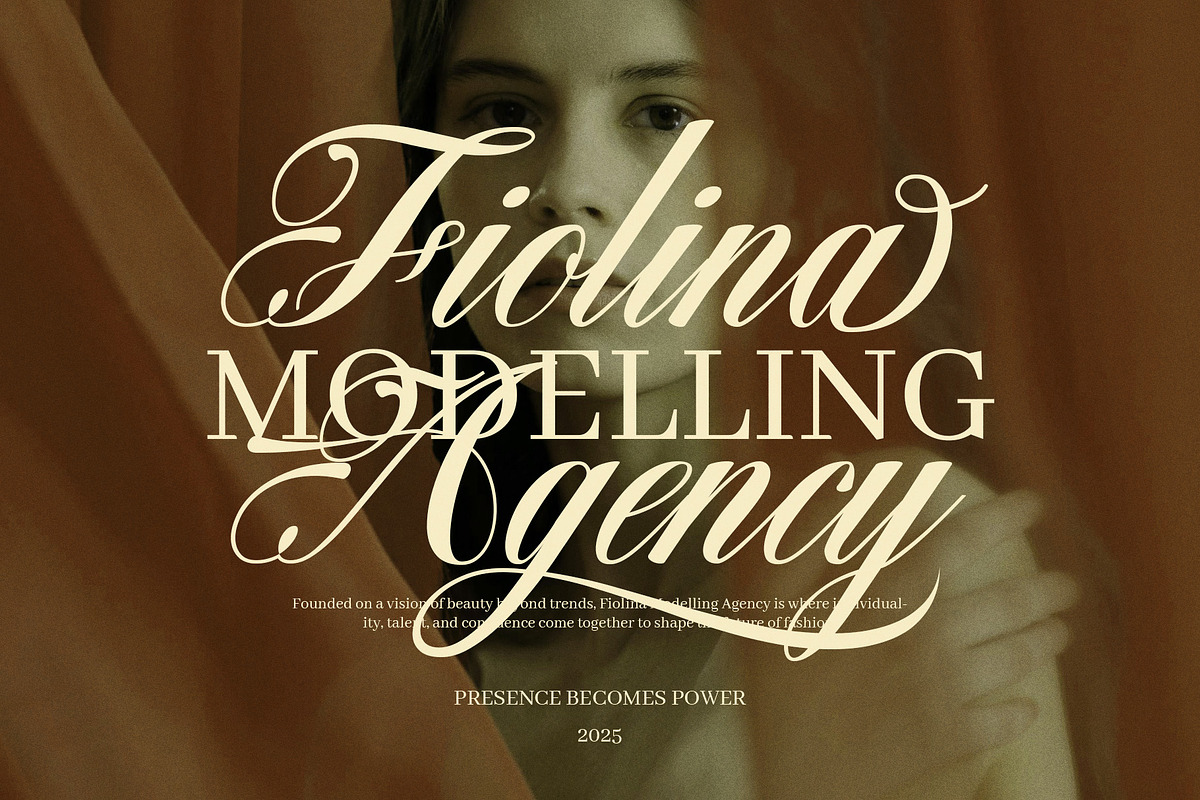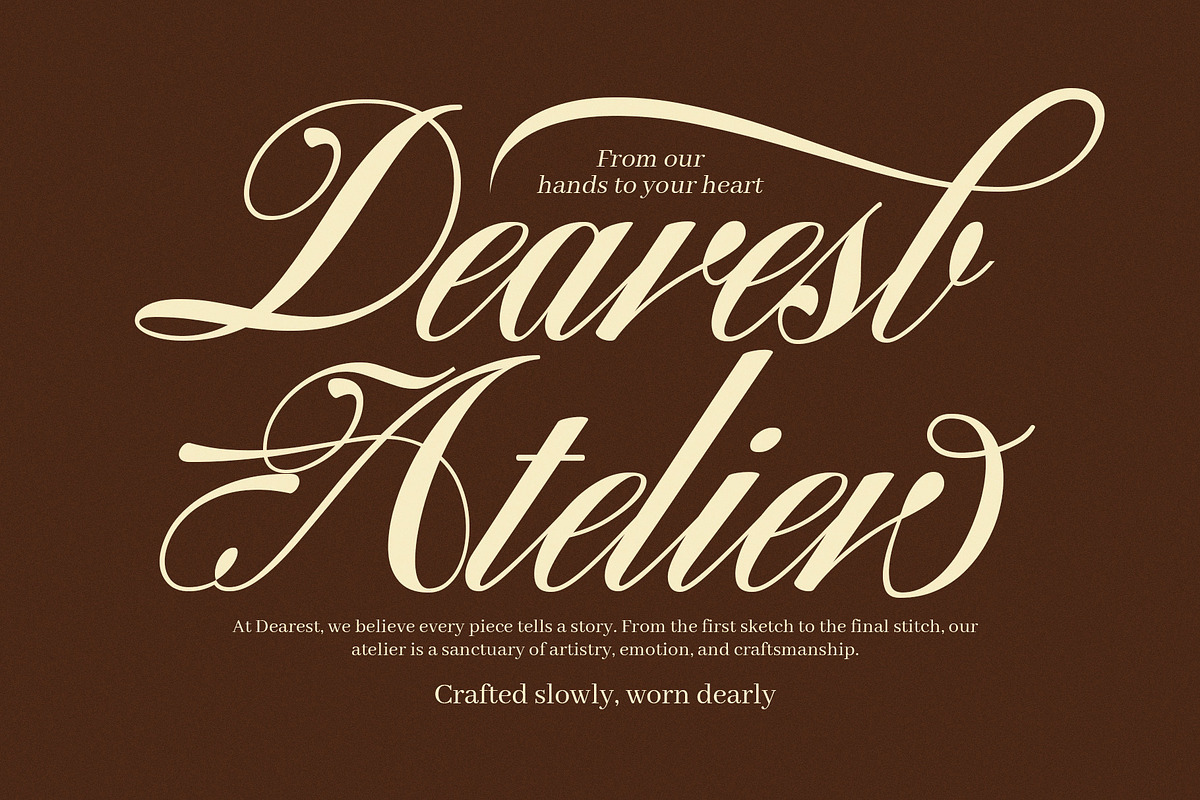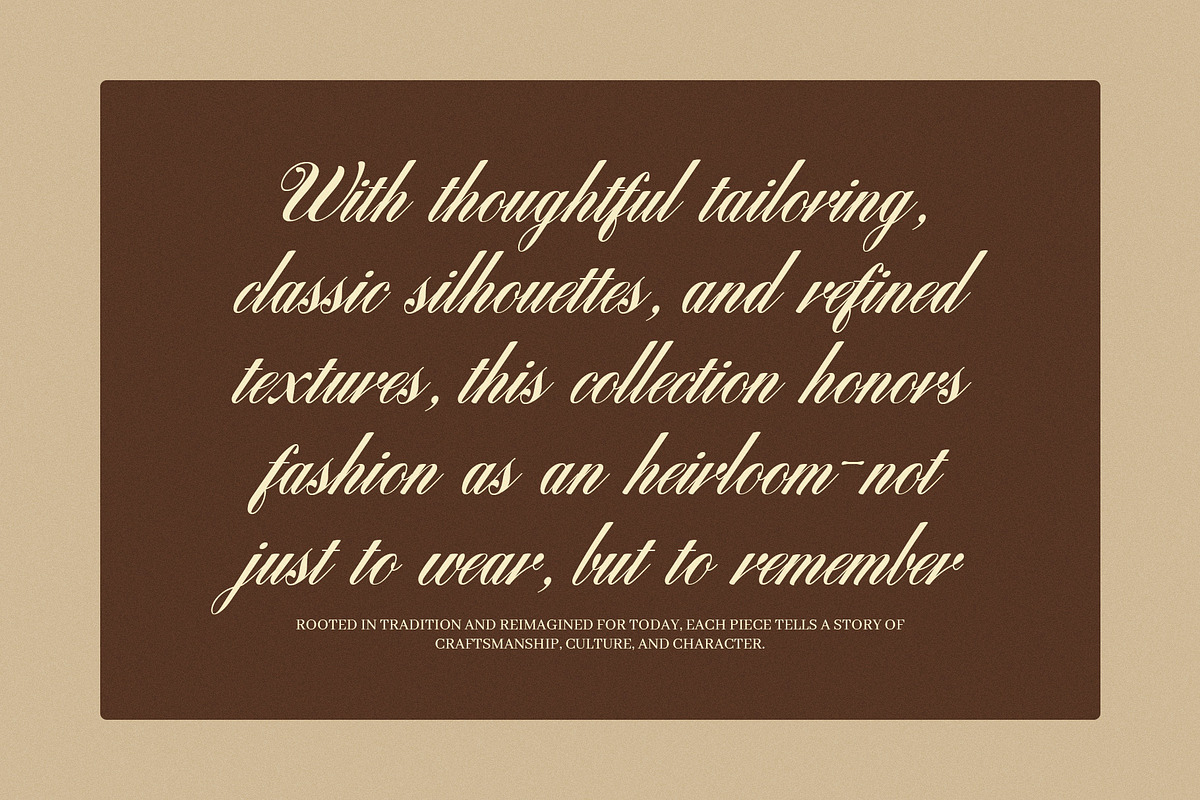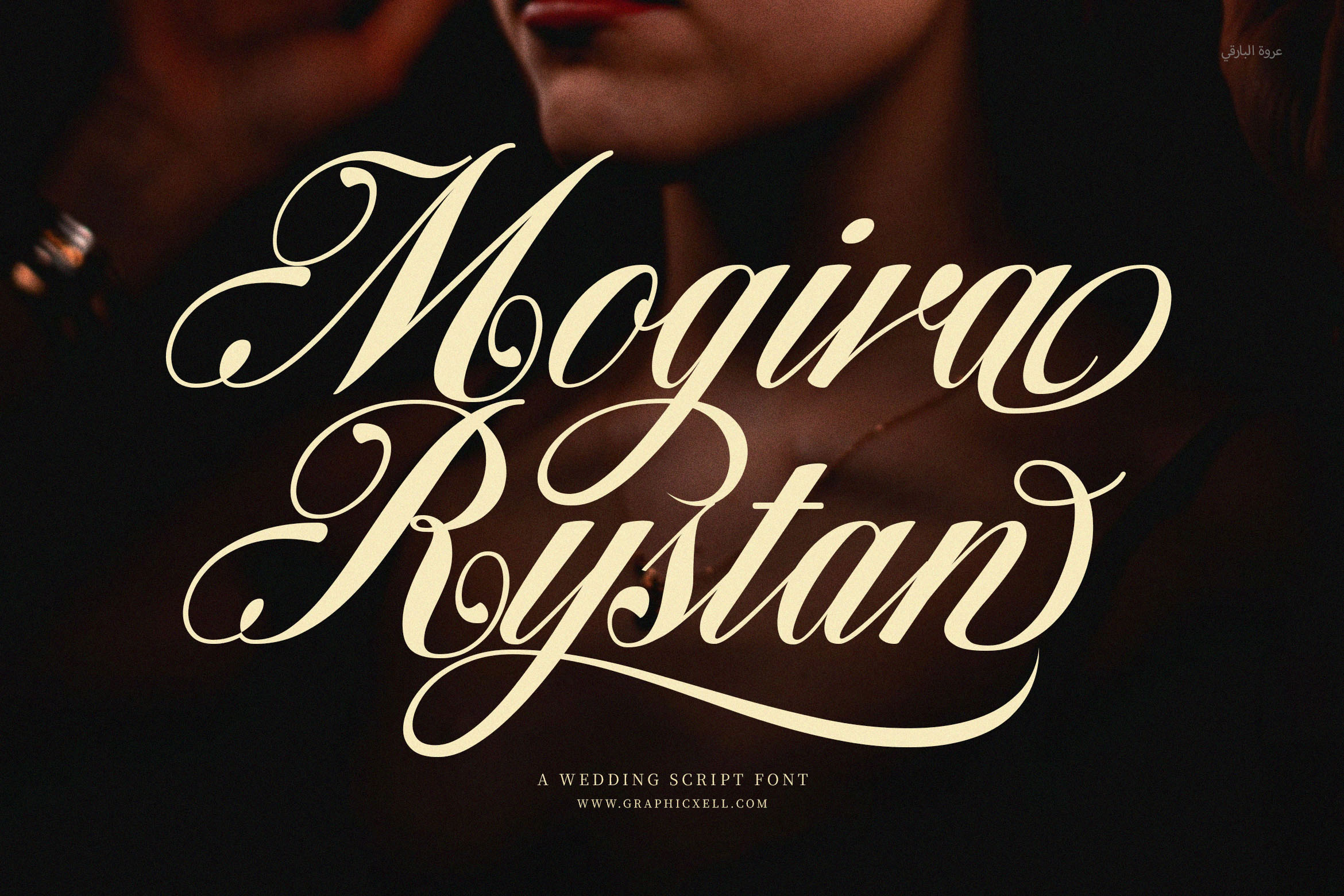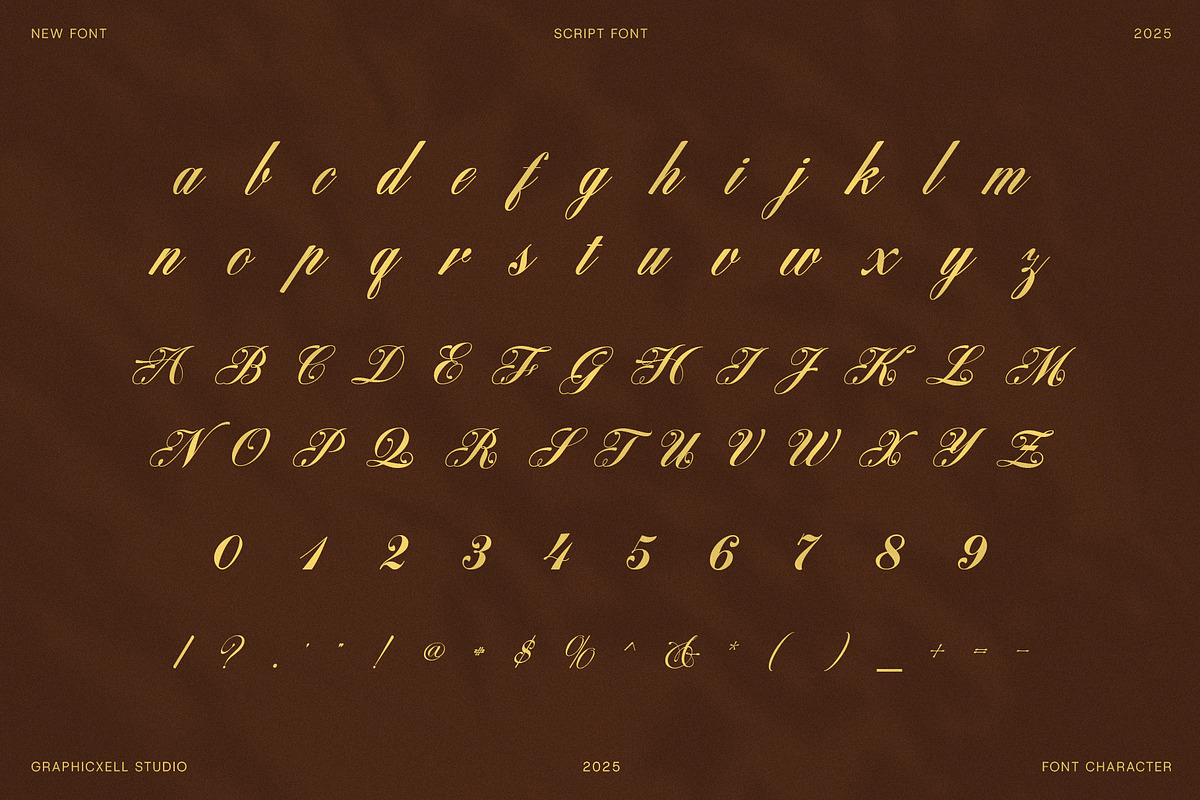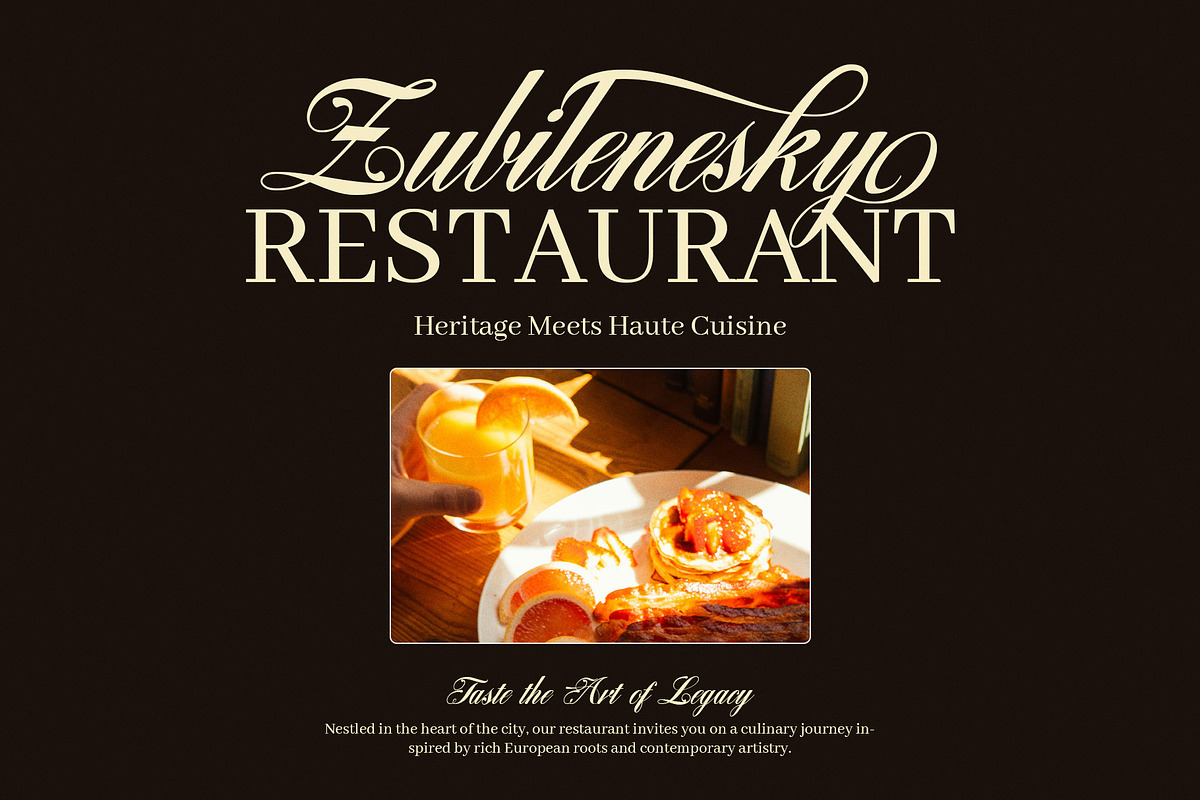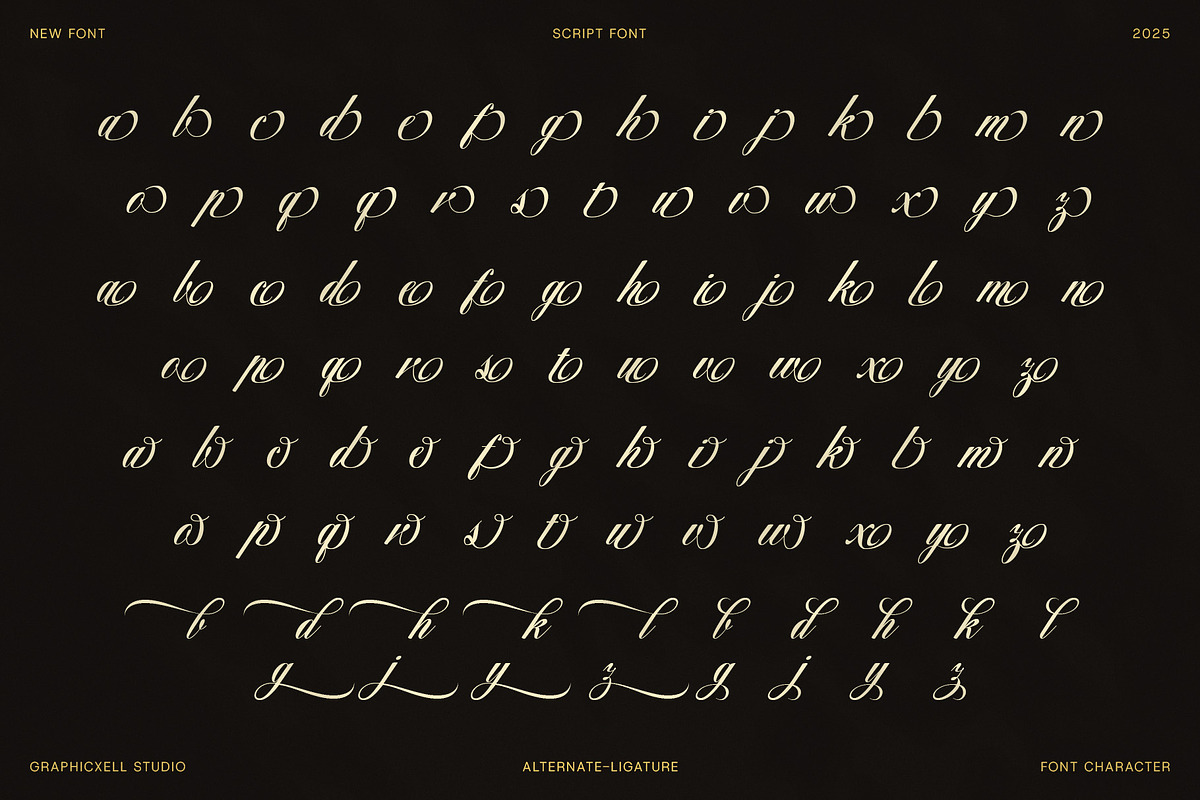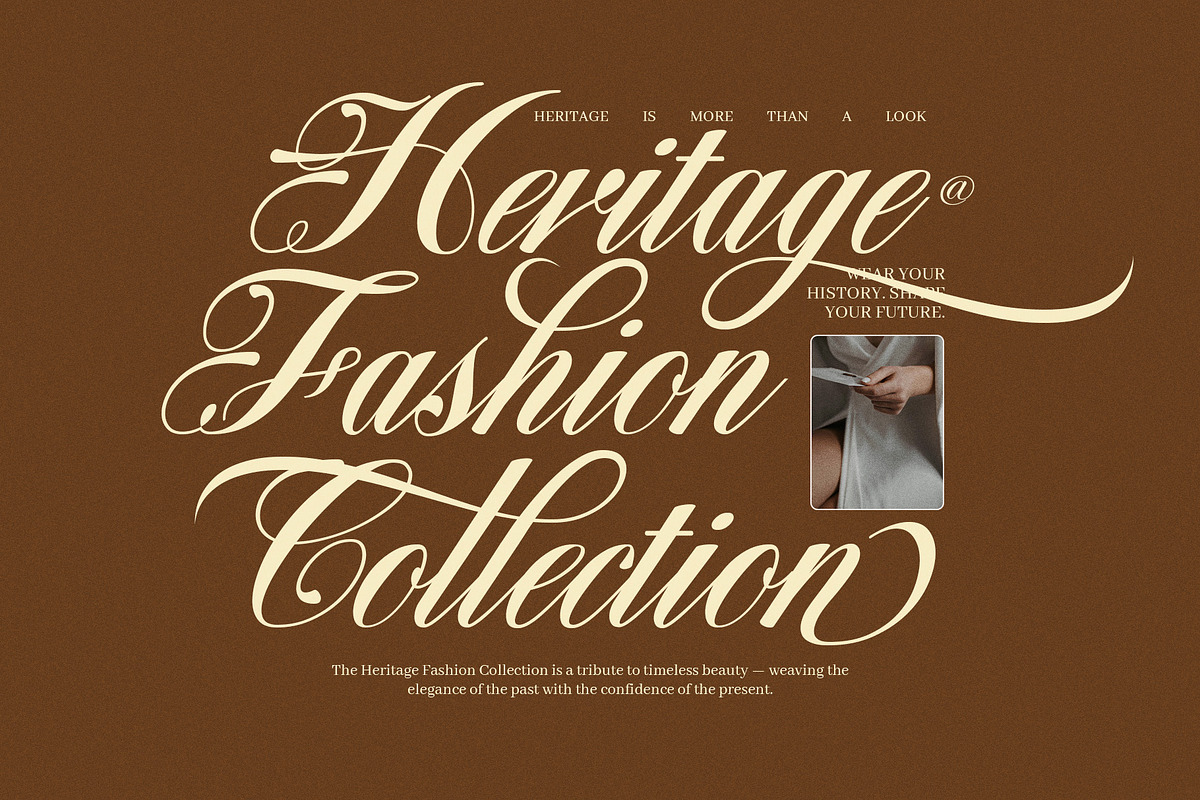
Mogira Rystan Wedding Script Font
Mogira Rystan is an elegant wedding script font that gracefully blends classic calligraphy with modern refinement. From the first stroke to the last curve, it captures timeless beauty while delivering smooth, effortless readability. Because of its elegant balance, every word feels alive with emotion and style.
Moreover, this typeface was crafted for designers who seek both sophistication and warmth. Each letter flows seamlessly, creating a refined rhythm that enhances visual harmony. Consequently, it becomes ideal for luxury invitations, fashion branding, and editorial design projects that require both romance and professionalism.
In addition, Mogira Rystan includes complete uppercase and lowercase letters, numerals, punctuation, and artistic ligatures. You will also find beautiful alternates and extended swashes, allowing endless creative freedom. Therefore, you can easily customize every headline or logo to match your brand’s personality and tone.
Wedding invitations and event stationery
Boutique or jewelry logos
Perfume and fashion packaging
Editorial titles and magazine spreads
Signature branding and photography watermarks
Most importantly, Mogira Rystan isn’t just a font—it’s an artistic expression. Through its refined strokes and graceful curves, it tells a story of romance, craftsmanship, and authenticity. As you create with it, you’ll notice how effortlessly it turns ordinary text into elegant art. Ultimately, this is a typeface that celebrates beauty, culture, and creativity in every form.